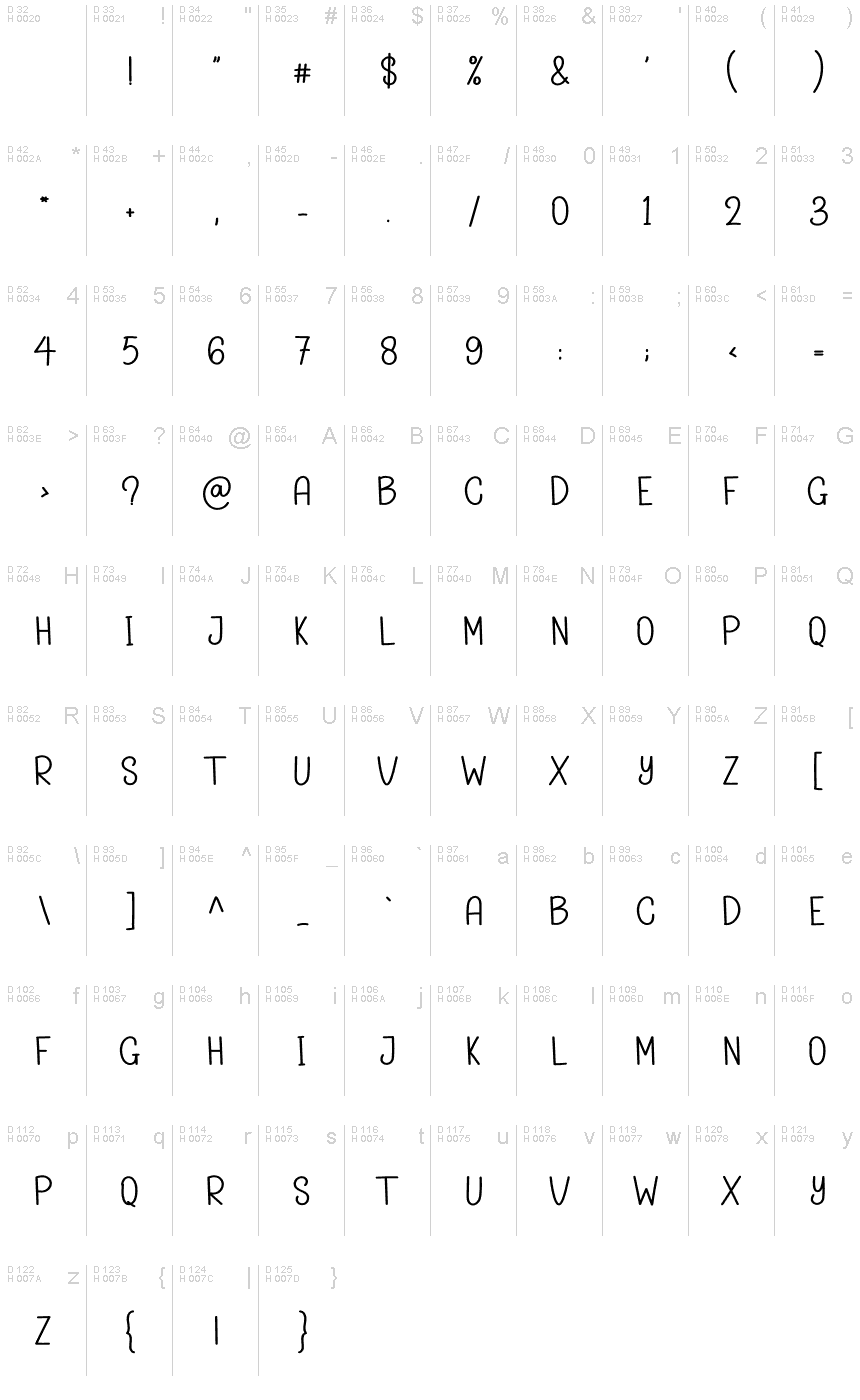
Simple Room
Simple Room, a charming handwritten font by Harlek Studio, is the perfect choice for projects that demand a touch of elegance and uniqueness. Its semi-light weight adds a delicate and graceful feel to any design. The semi-condensed width allows for efficient use of space, making it ideal for various creative endeavors.
Whether you're designing wedding invitations, inspirational quotes, or branding materials, Simple Room will effortlessly infuse your work with a sophisticated yet approachable vibe.